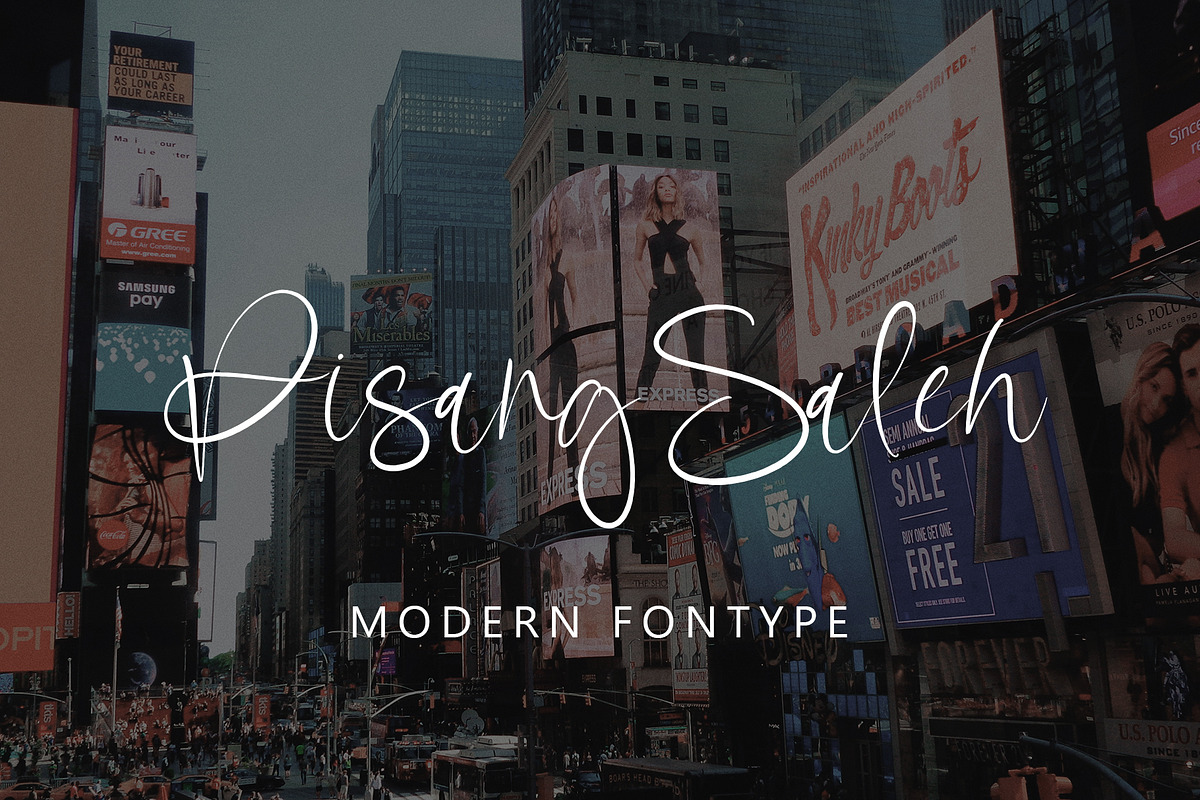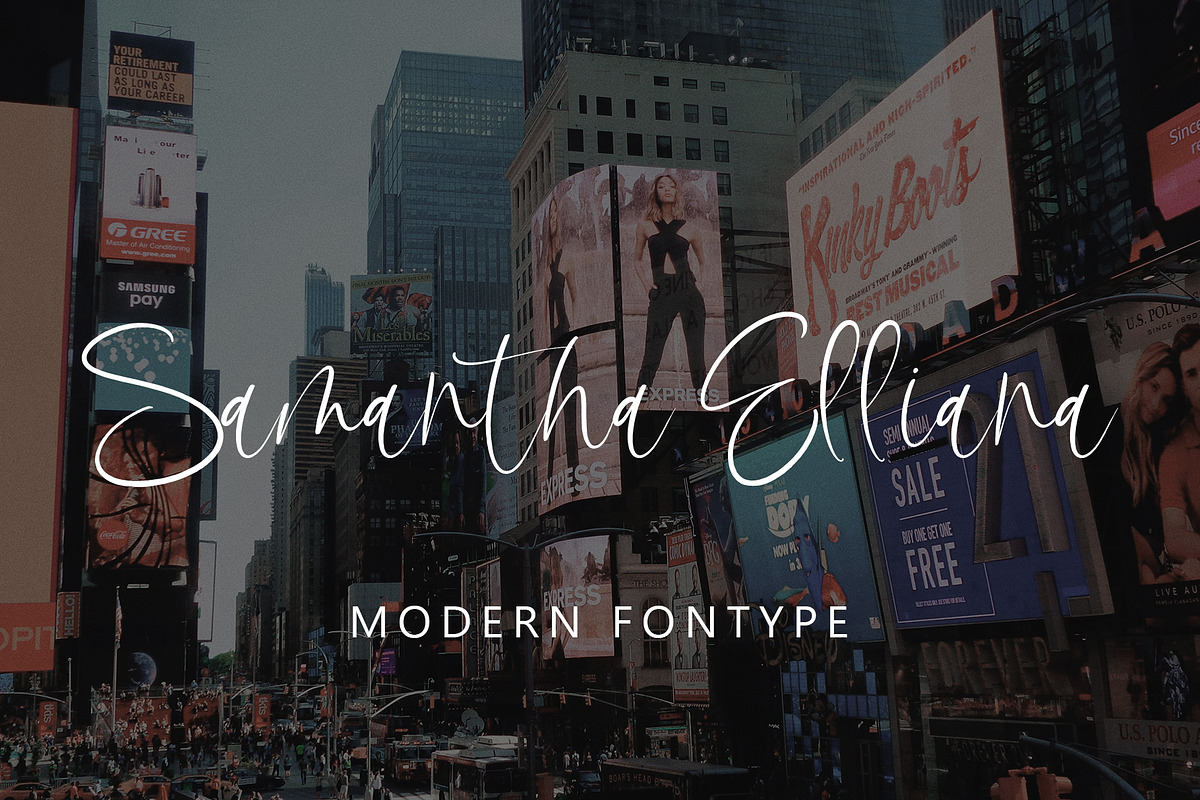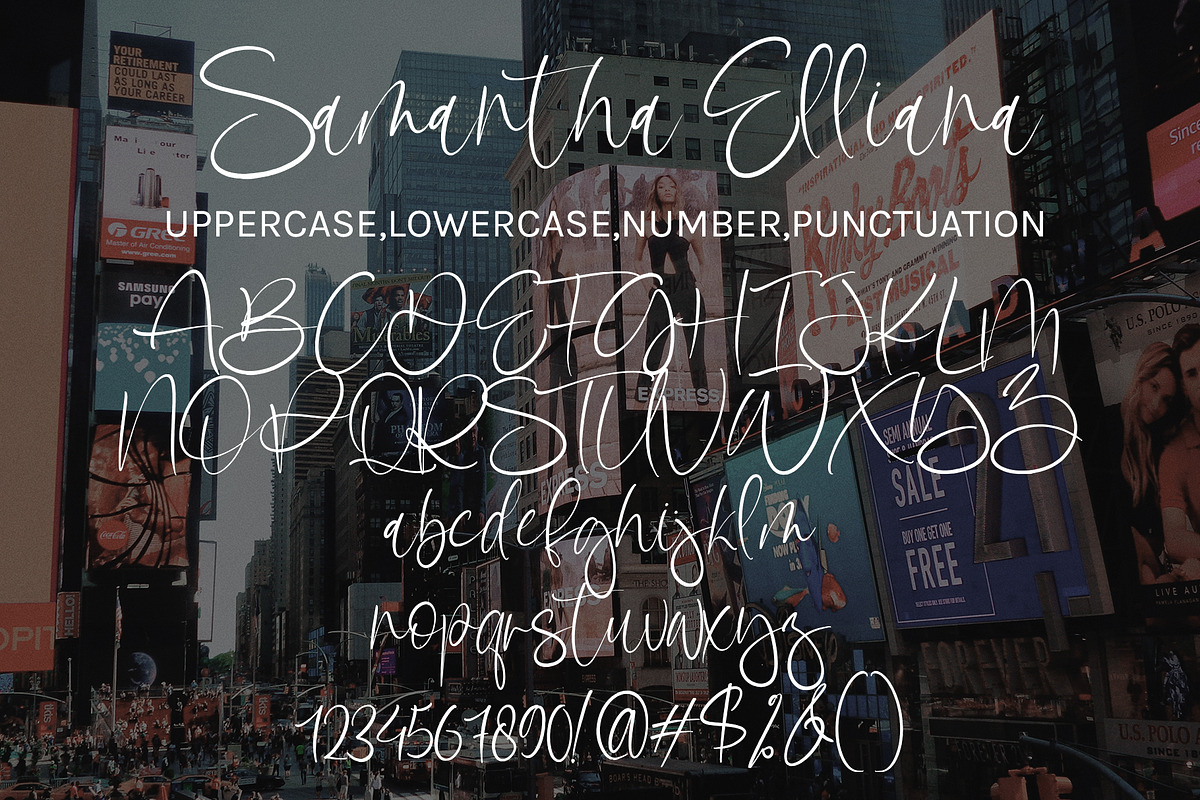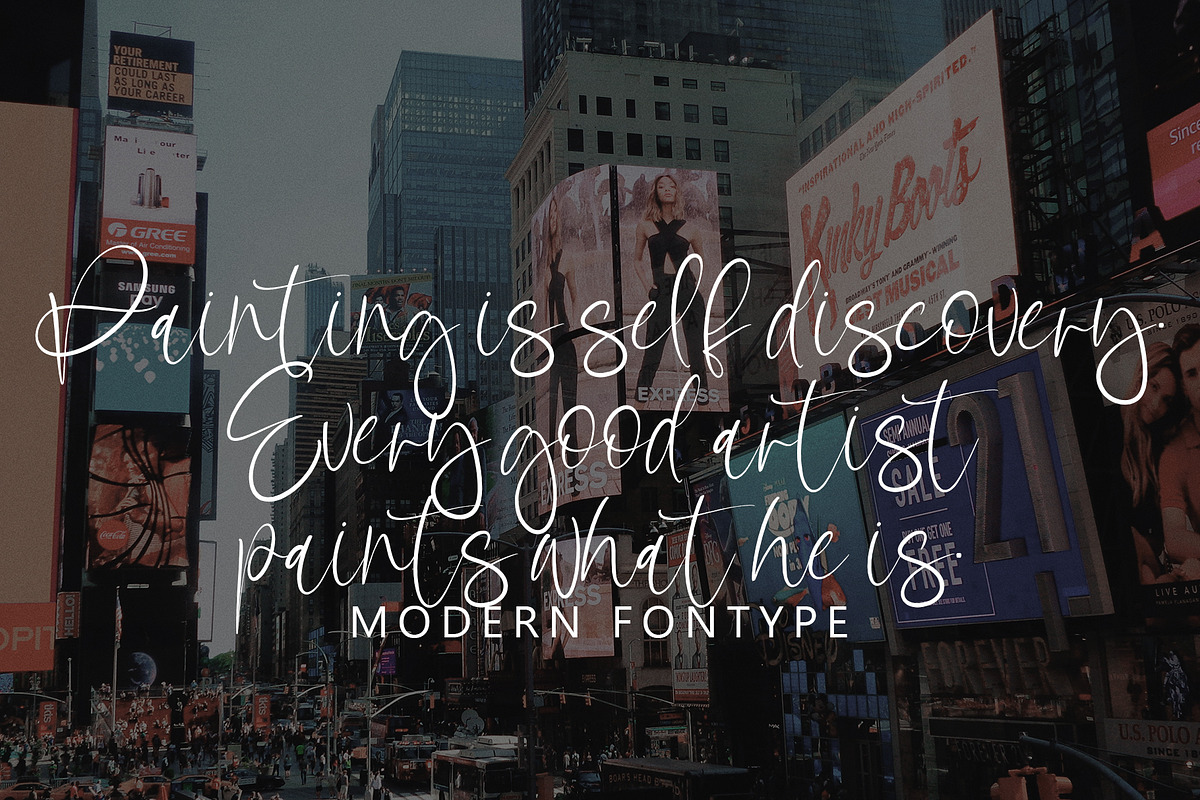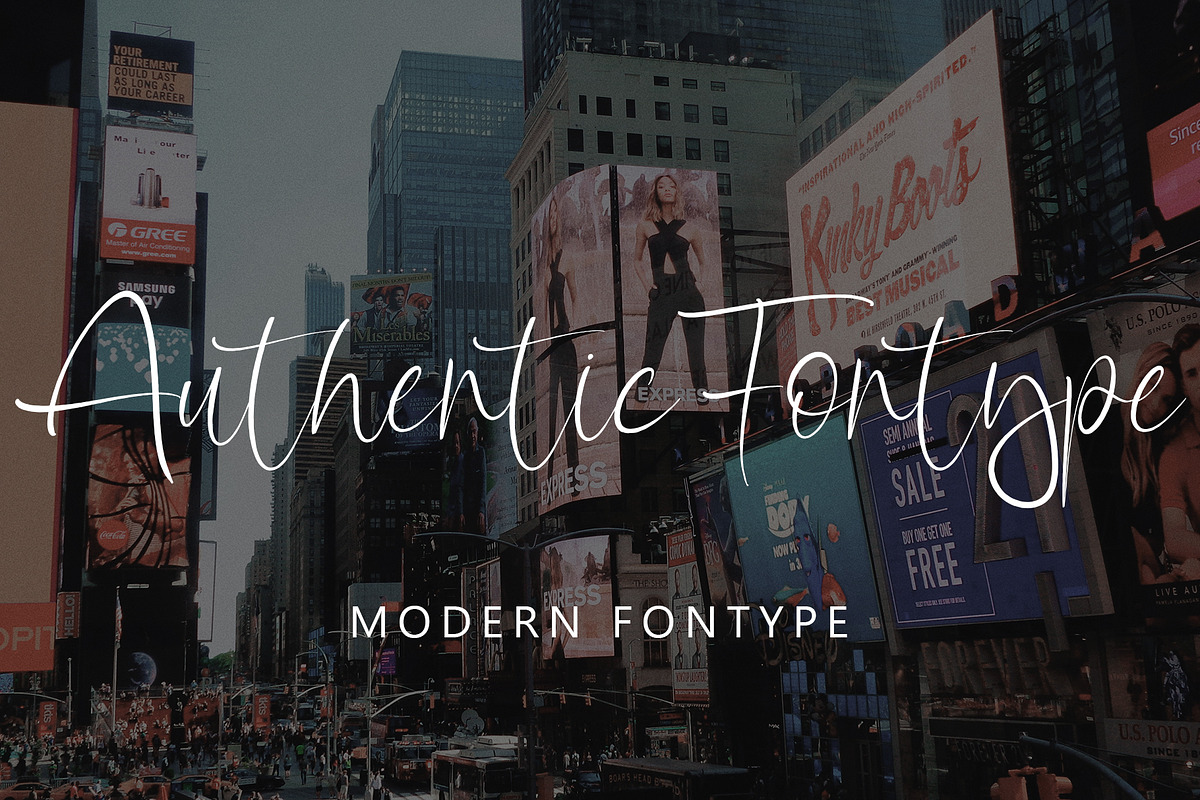
Samantha Elliana
Samantha Elliana with new style, this font will perfect for many different project ex: quotes, logo, blog header, poster, banding, letter, invitation, stationery, etc...